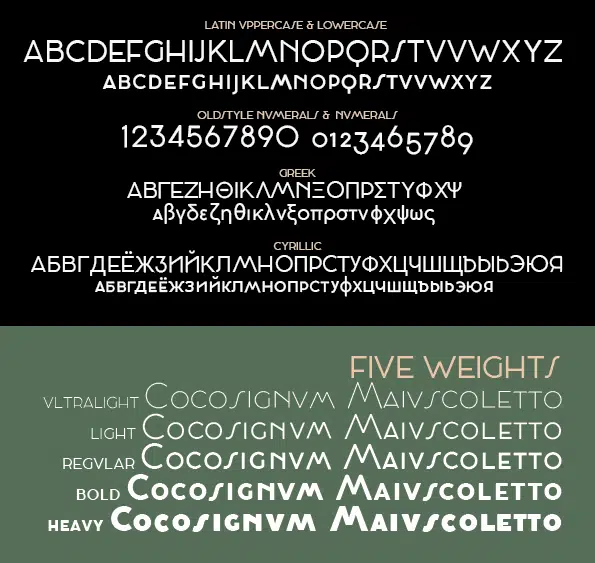
Cocosignum Maiuscoletto Font
Cocosignum Maiuscoletto Font is perfect for luxury Italian fashion brands, sophisticated European hospitality signage, elegant Mediterranean restaurant menus, refined wine label designs, cultured art gallery materials, prestigious Italian heritage brands, upscale European boutiques, classical architecture firms, distinguished cultural institutions, and sophisticated European corporate communications.
Cocosignum Maiuscoletto Font is exciting because it masterfully embodies the sophisticated elegance and cultural refinement of Italian design heritage, creating a typeface that represents the intersection of classical Roman inscriptional tradition and contemporary European luxury aesthetics. This font brings continental sophistication and Italian elegance to any project, making it ideal for luxury brands that want to convey European heritage, cultural sophistication, and the timeless appeal of Italian craftsmanship and design excellence. Its classical character and cultured appeal create an atmosphere of European refinement that resonates with discerning audiences who appreciate authentic cultural heritage.
Cocosignum Maiuscoletto Font family includes light, regular, medium, bold, and black weights, each available in roman and italic styles with classical ornaments and Italian decorative elements, providing designers with comprehensive tools for creating sophisticated European typography and culturally distinguished brand experiences.
This distinguished classical typeface combines Roman inscriptional traditions with contemporary luxury design principles, making Cocosignum Maiuscoletto Font Free Download a premium choice for projects celebrating Italian heritage and European cultural sophistication. The font's elegantly crafted letterforms feature classical proportions and Italian styling that reflect the architectural beauty and cultural significance of Roman typography and Mediterranean design traditions.
Whether you're designing luxury Italian brand identity, sophisticated European hospitality materials, or prestigious cultural communications, Cocosignum Maiuscoletto Font delivers unmatched cultural authenticity and European appeal. The font excels in both intimate luxury applications and grand cultural environments where Italian heritage and European sophistication create memorable authentic experiences.
European luxury professionals choose Cocosignum Maiuscoletto Font for its ability to instantly communicate Italian sophistication and cultural heritage while creating emotional connections with audiences seeking authentic European luxury and cultural refinement. The font's classical character makes it particularly effective for Italian fashion houses, European cultural institutions, and Mediterranean luxury brands.
Each character reflects the monumental beauty of Roman inscriptions, featuring classical construction and Italian proportions that create typography as timeless and sophisticated as Roman architecture, Italian art, and the finest expressions of European cultural heritage.